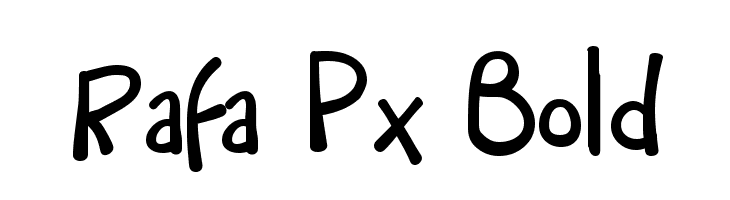
A playful, handwritten font with a casual and friendly appearance.
A bold, playful handwritten font with rounded, consistent strokes.
A playful and whimsical font with dynamic, irregular letterforms.
A playful handwritten font with a casual and friendly style.
A bold, playful handwritten font with a casual and friendly style.